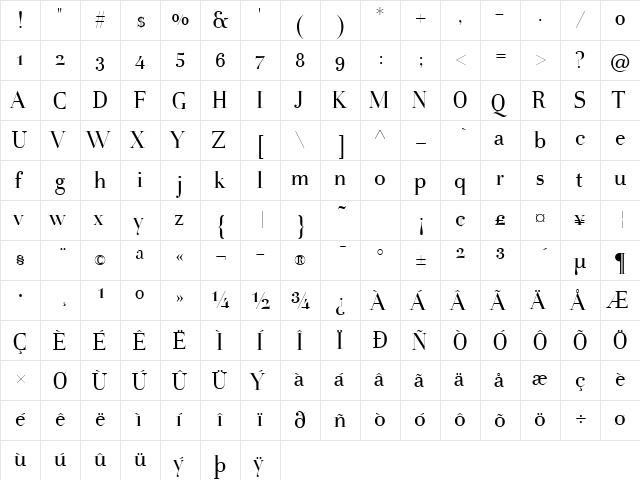
HolmenHeadline-Regular Regular
| Foundry | FSI FontShop International GmbH |
| Designer | Per Jorgensen |
Design Context for HolmenHeadline-Regular Typeface
HolmenHeadline-Regular is a composed and adaptable typeface that performs quietly and consistently across a wide range of design contexts.